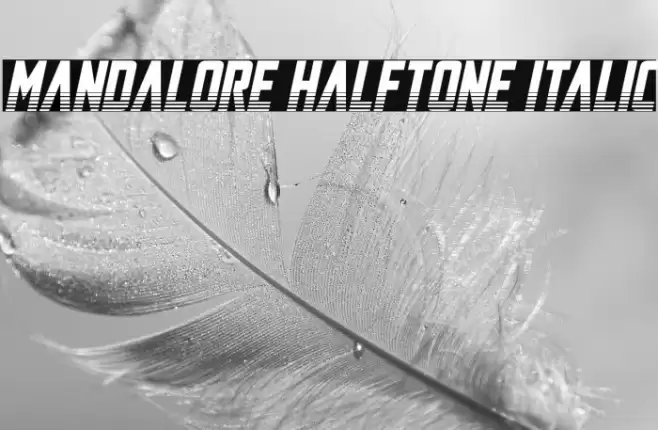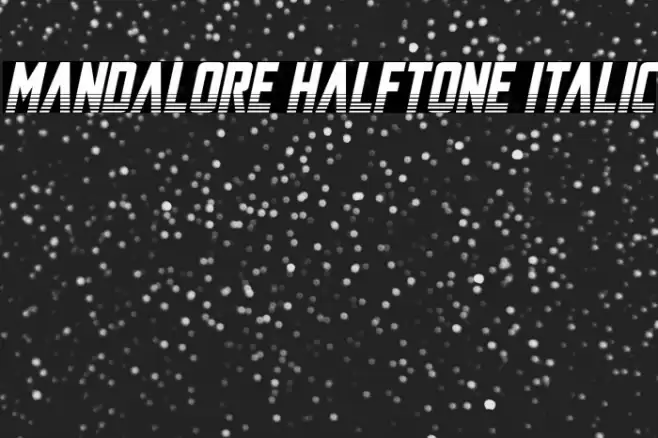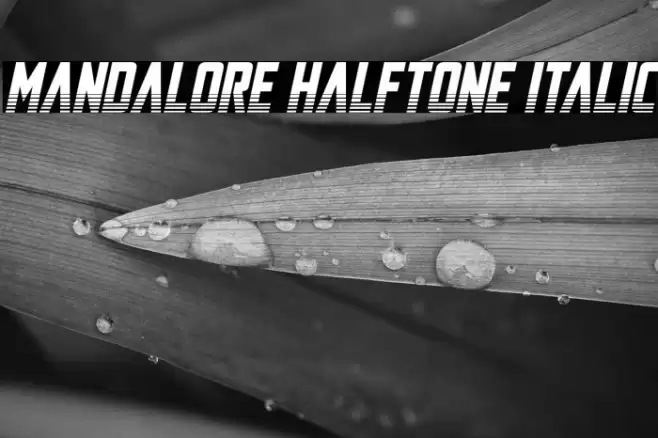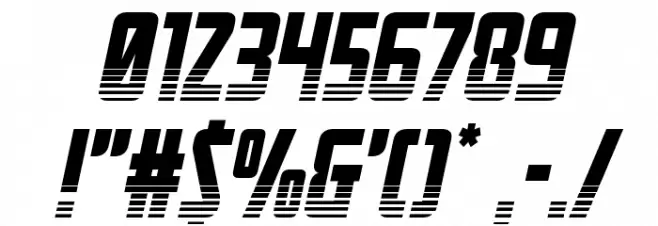
Mandalore Halftone Italic Font
Mandalore Halftone Italic Description
This font features a bold and dynamic design with a halftone effect that gives it a unique, futuristic appearance. The characters are italicized, adding a sense of motion and speed. The uppercase and lowercase letters, as well as numbers and special characters, maintain a consistent style with sharp edges and a slanted orientation. The halftone pattern creates a gradient effect, enhancing the visual interest and making it suitable for eye-catching designs.
A bold, italicized font with a halftone effect, perfect for dynamic and futuristic designs from Uncategorized fonts.
- Proposed Projects: Ideal for sci-fi themed posters, video game titles, branding for tech companies, and any project requiring a modern, edgy look.
- Overall Style: Futuristic, Dynamic